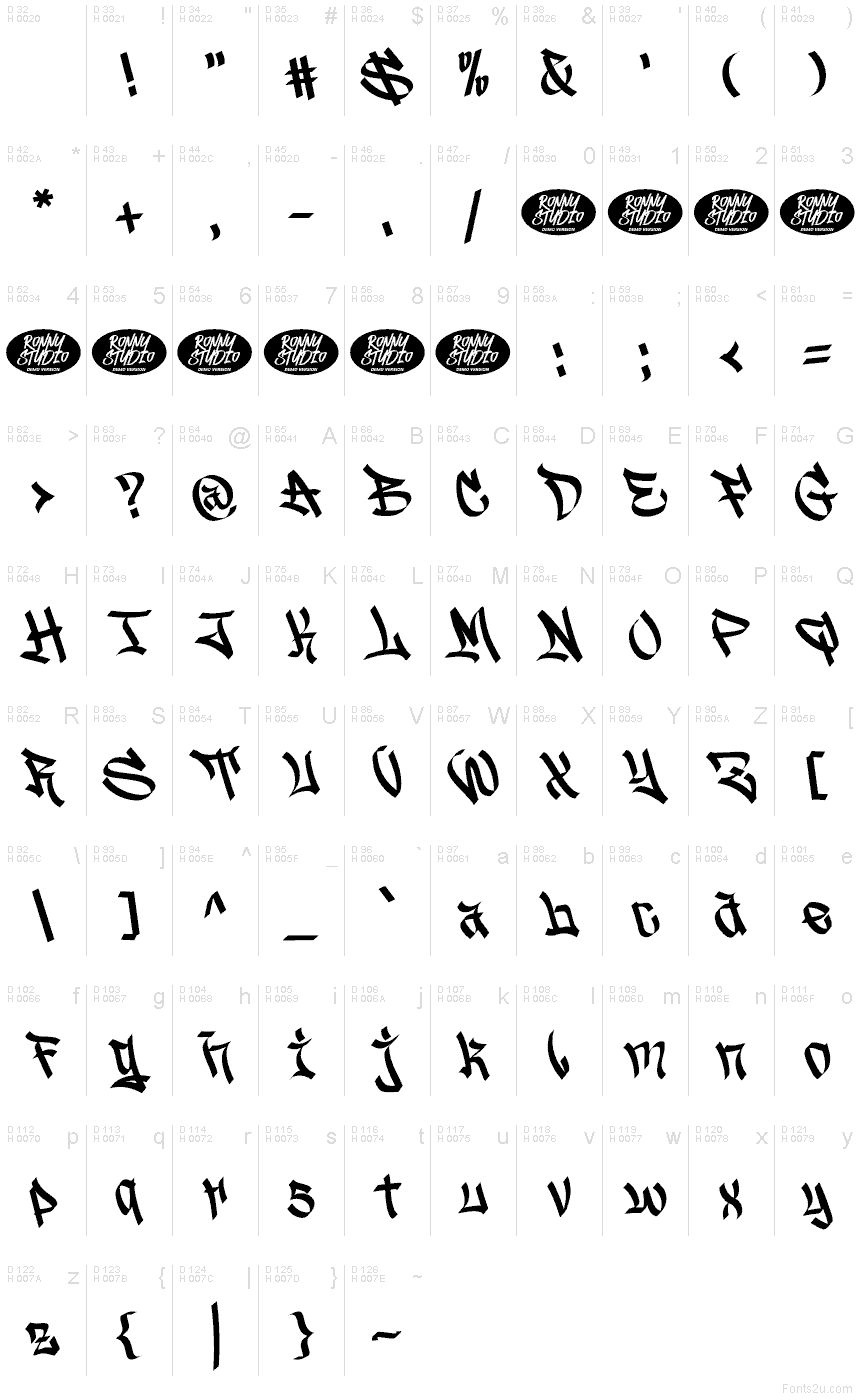
Street Breaker DEMO
Street Breaker font by Ronny Studio is a free graffiti font. Built around slashing, blade-like strokes and whip-fast curves, it delivers that alleyway energy without turning messy. The letters swing and spike with high-contrast rhythm, giving headlines a cut-through edge that reads fast and hits hard.
Using Street Breaker, your work snaps to attention on streetwear logos, hip-hop or DJ flyers, skate decks, game titles, sticker packs, and bold poster drops. This free font shines when set big with slightly tight tracking; pair it with a clean condensed sans to handle details and let the graffiti forms take the spotlight.